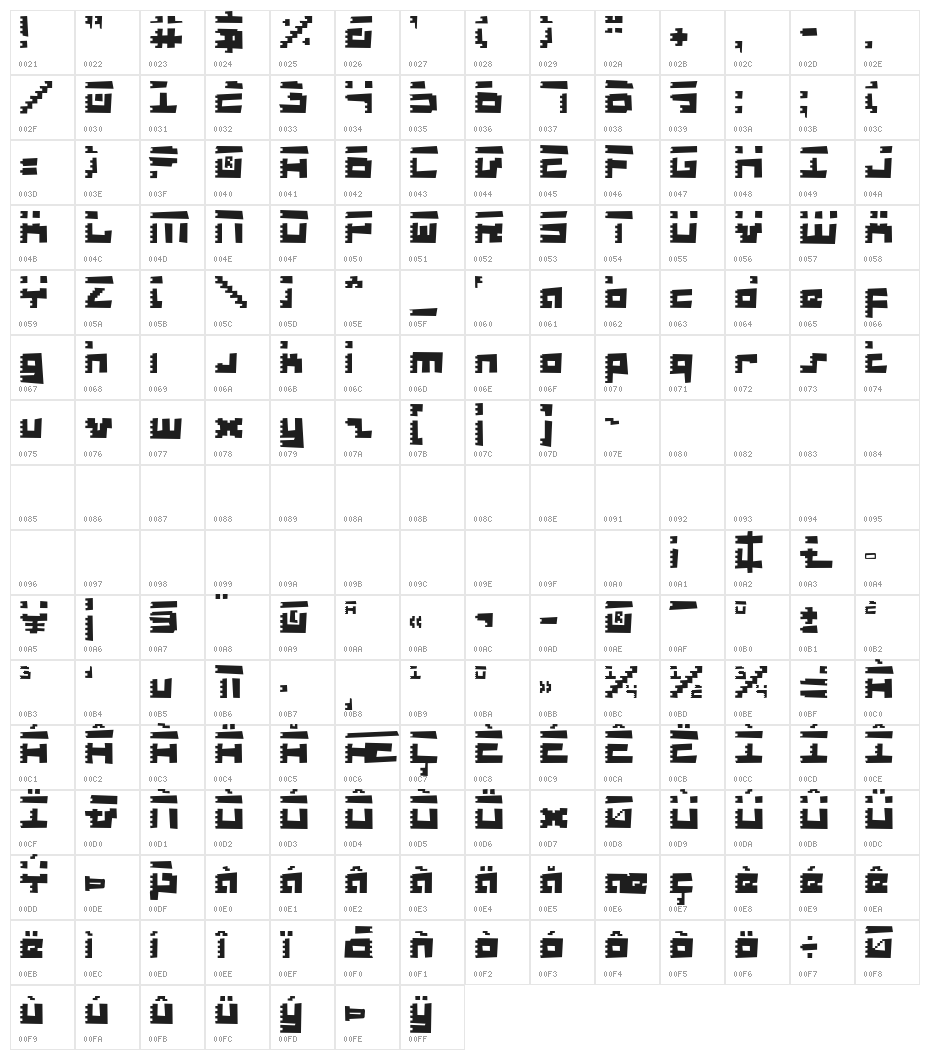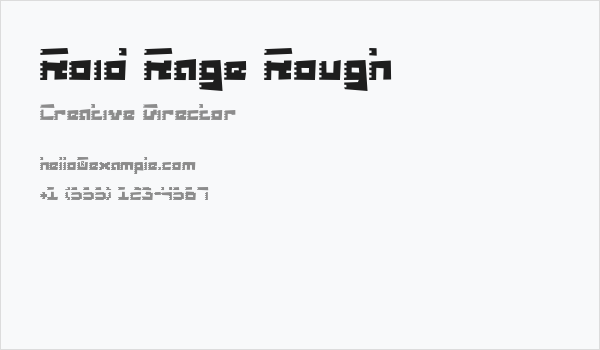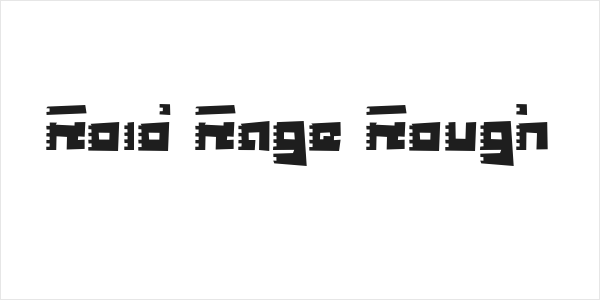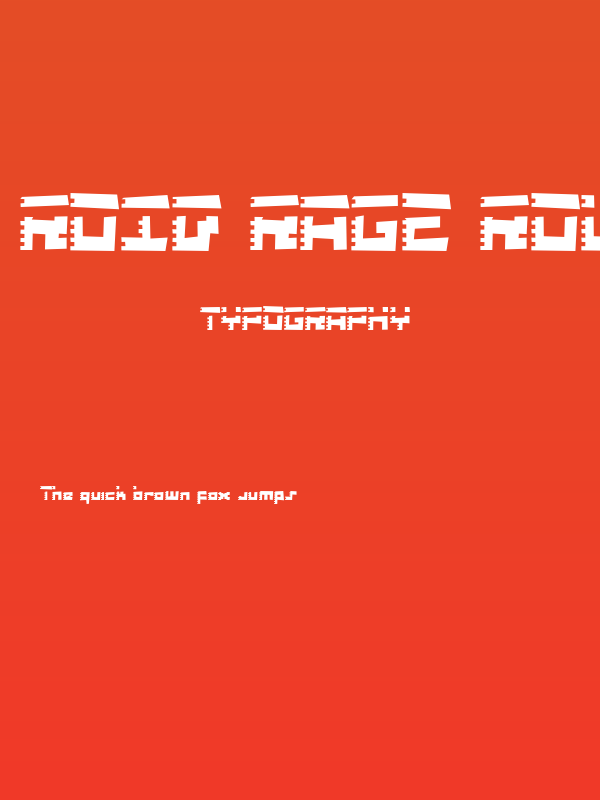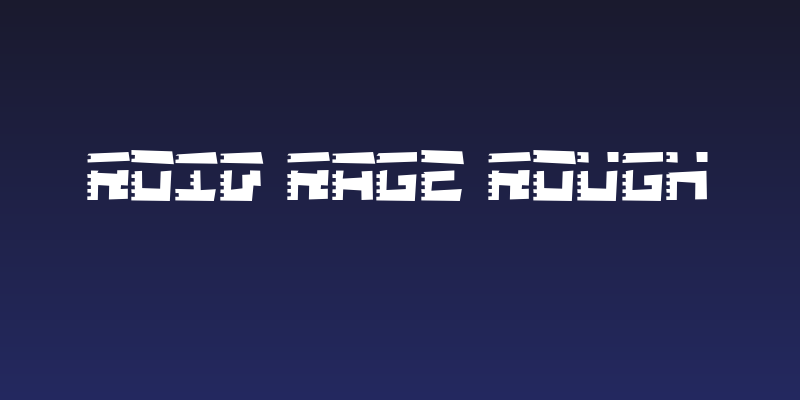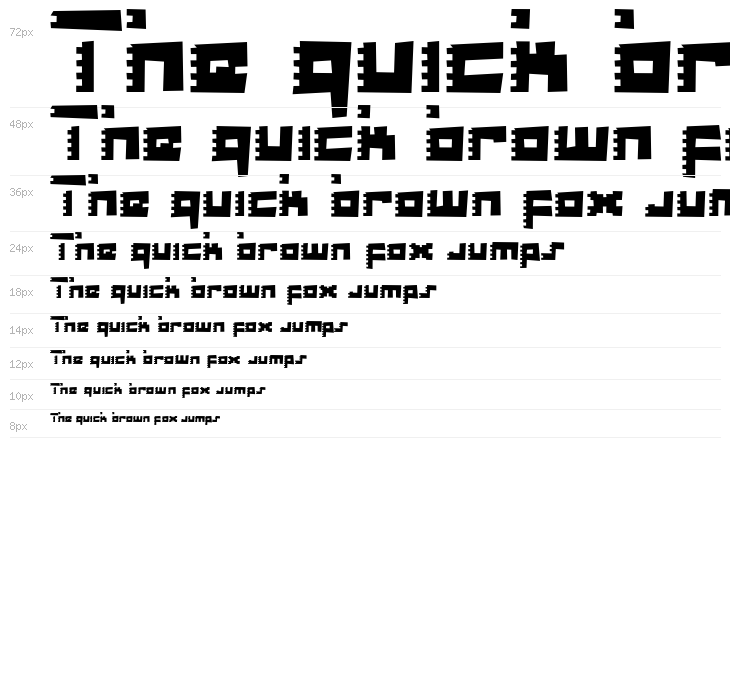
Roid Rage Rough Font
Roid Rage Rough Description
This font features a bold and aggressive style with a rough, pixelated texture that gives it a rugged, digital appearance. The characters are blocky and angular, with a distinctive jagged edge that adds to its unique aesthetic. The uppercase and lowercase letters maintain a consistent height, creating a uniform look across the text. The numbers and special characters follow the same design principles, ensuring cohesion throughout. This font's strong visual impact makes it ideal for projects that require a bold statement.
| Proposed Projects | Ideal for video game graphics, tech-themed posters, or digital art projects. |